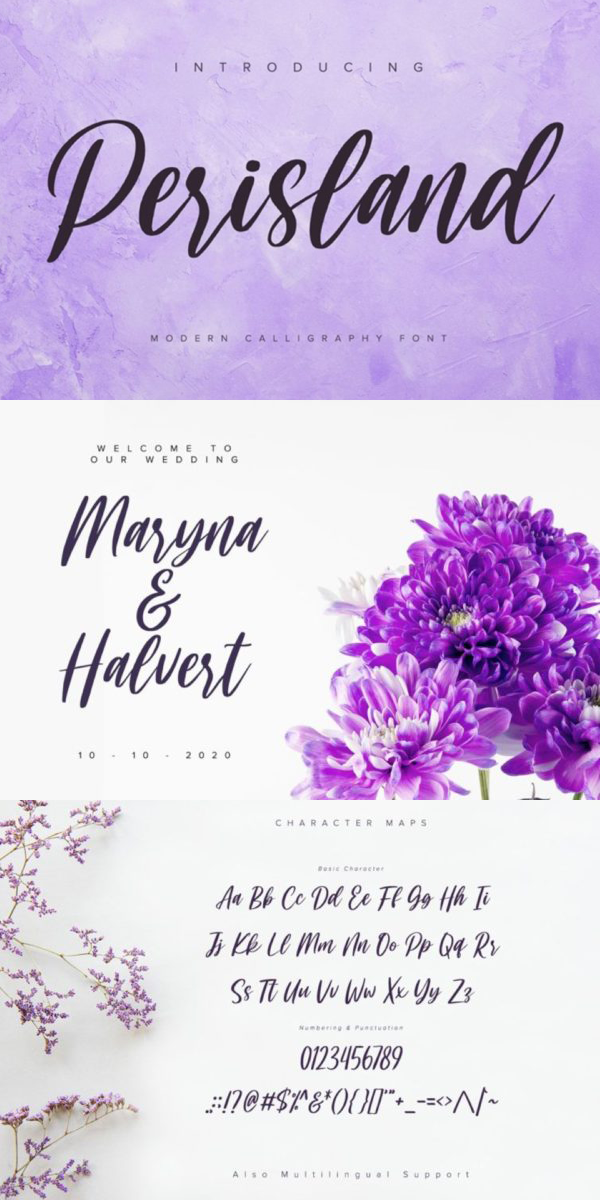
Perisland Font
About Perisland
Perisland is a modern handwritten font. With a classy and natural handwritten style, it brings a classy and chic typeface. Perisland is best used for weddings, branding, logotype, and quotes.
– Beautiful Ligatures